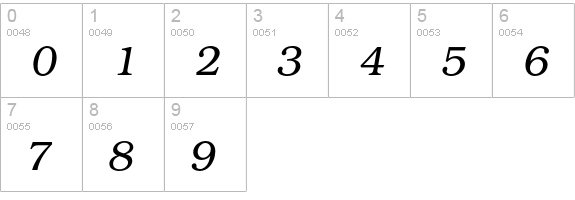
Bookman* Light Italic Font Details
Bookman* Light Italic is a refined, elegant, italic variant in the Bookman* typeface family \xE2\x80\x94 well suited to elegant body text, refined sub-headings, and luxury branding.
Bookman Light Italic font is a sophisticated and elegant typeface that exudes a sense of refinement and grace. With its sleek and slanted design, this font is perfect for adding a touch of sophistication to any project or design. The delicate curves and gentle strokes of Bookman Light Italic create a sense of fluidity and movement, making it a versatile choice for a variety of applications. What sets Bookman Light Italic apart is that it is available for free download at FontsMarket.com. This means that you can easily access and use this beautiful font in your projects without any cost. Whether you're designing a website, creating print materials, or crafting a unique logo, Bookman Light Italic is a fantastic choice that will elevate your work to the next level. Download Bookman Light Italic today from FontsMarket.com and discover the beauty and versatility of this stunning font. Let Bookman Light Italic bring a touch of elegance to your designs and help you make a lasting impression.